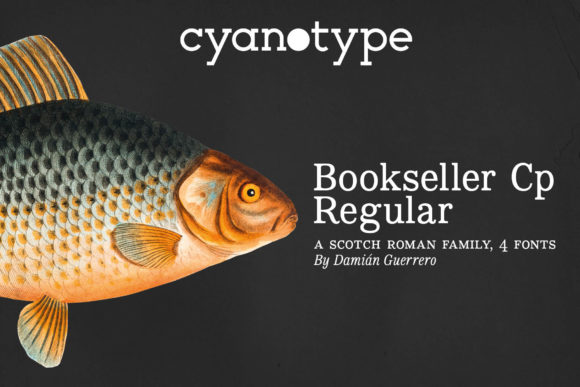
Do you dare to give your nonfiction book a unique and elegant look?
Bookseller Cp Regular Font is the perfect font to add a touch of timeless elegance to your book. This serif font is a classic choice for nonfiction books, with its old book style and subtle serif details.
With Bookseller Cp Regular Font, your book will stand out from the rest with its effortless style and sophistication. Its solid shapes and unwavering legibility make it easy on the eyes, allowing your readers to effortlessly absorb your words and delve into the heart of your story.
Whether you're a seasoned author or a first-time writer, Bookseller Cp Regular Font will lend your work an air of authority and gravitas. It's the perfect choice for:
- Nonfiction books
- Textbooks
- Magazines
- Editorial design
- Small text
- Captions